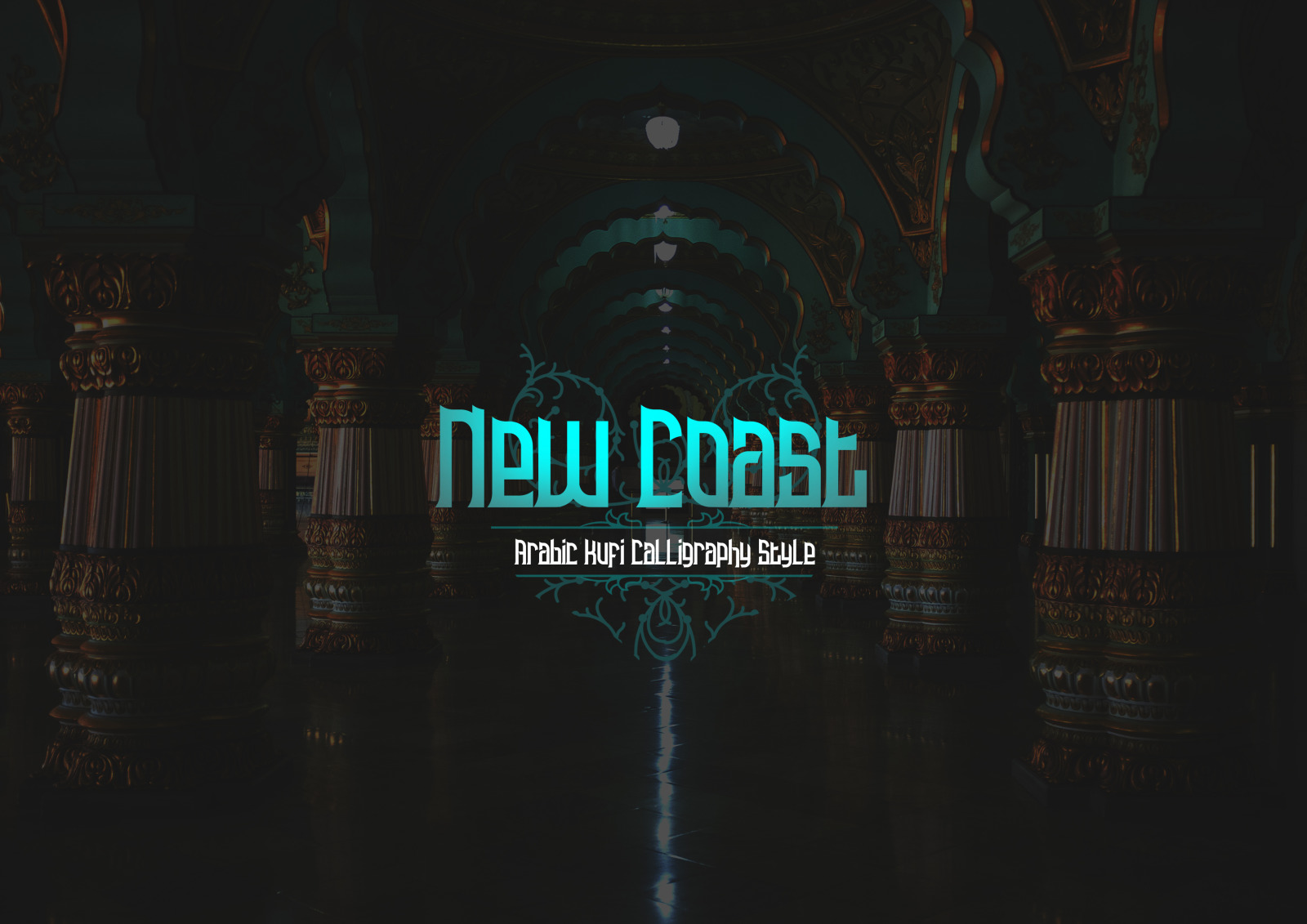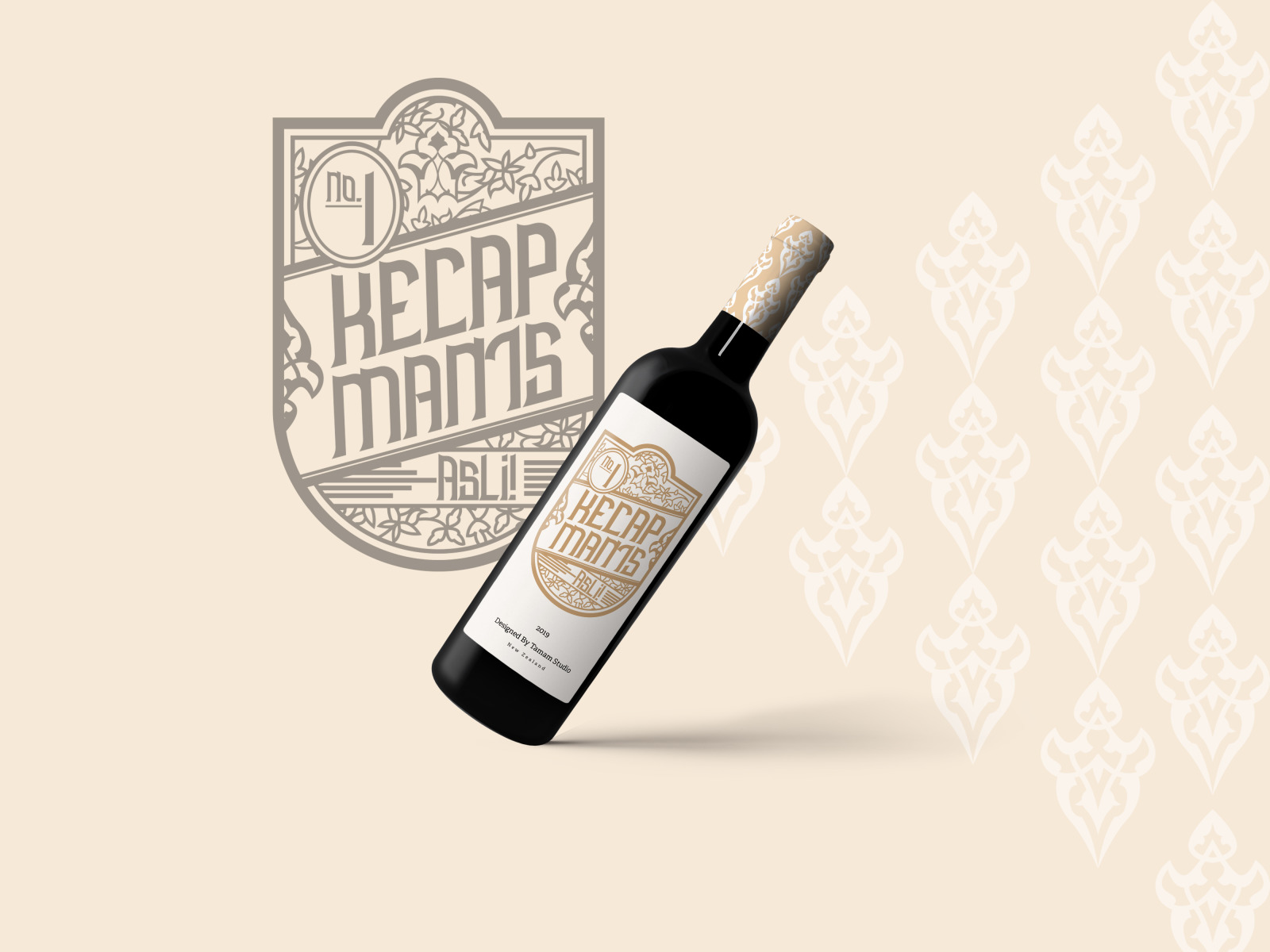
New Coast Font
New Coast is a Blackletter font inspired by arabic calligraphy kufi or also known as hatt kufi. With classic, elegant, vintage, and clean feel. Also come with ornament to adding more aesthetics of your designs.
- Included Numeral and Punctuation